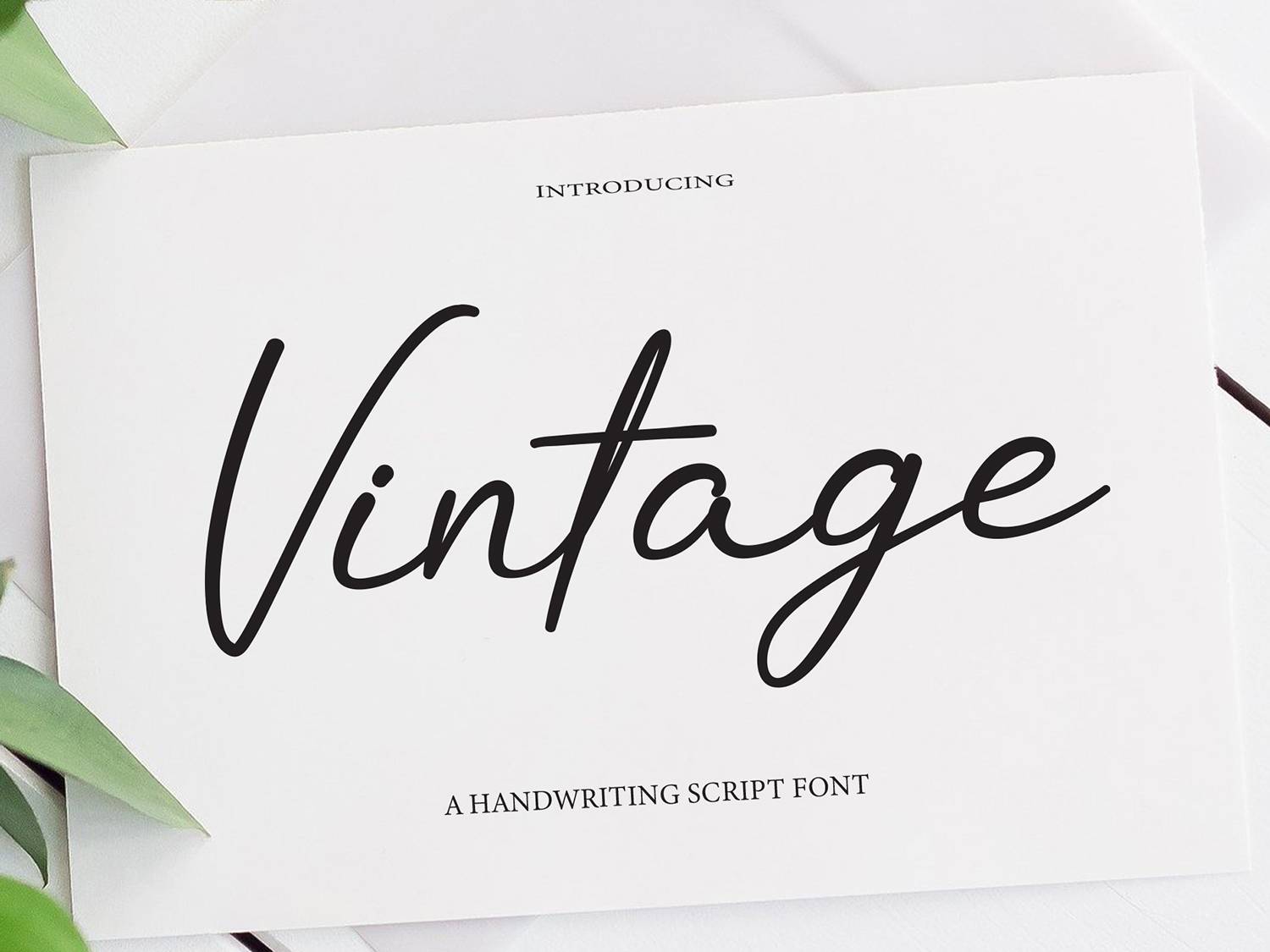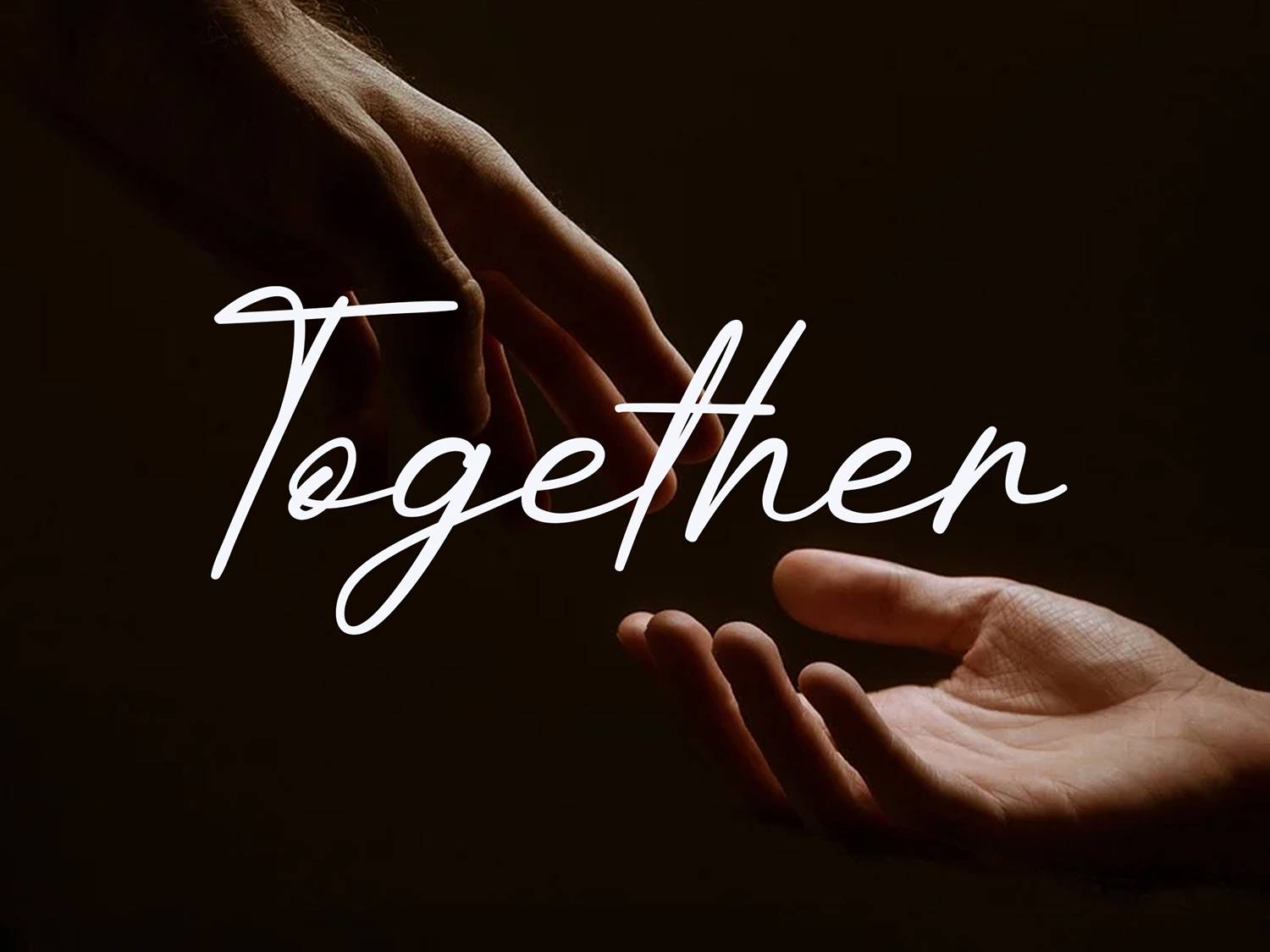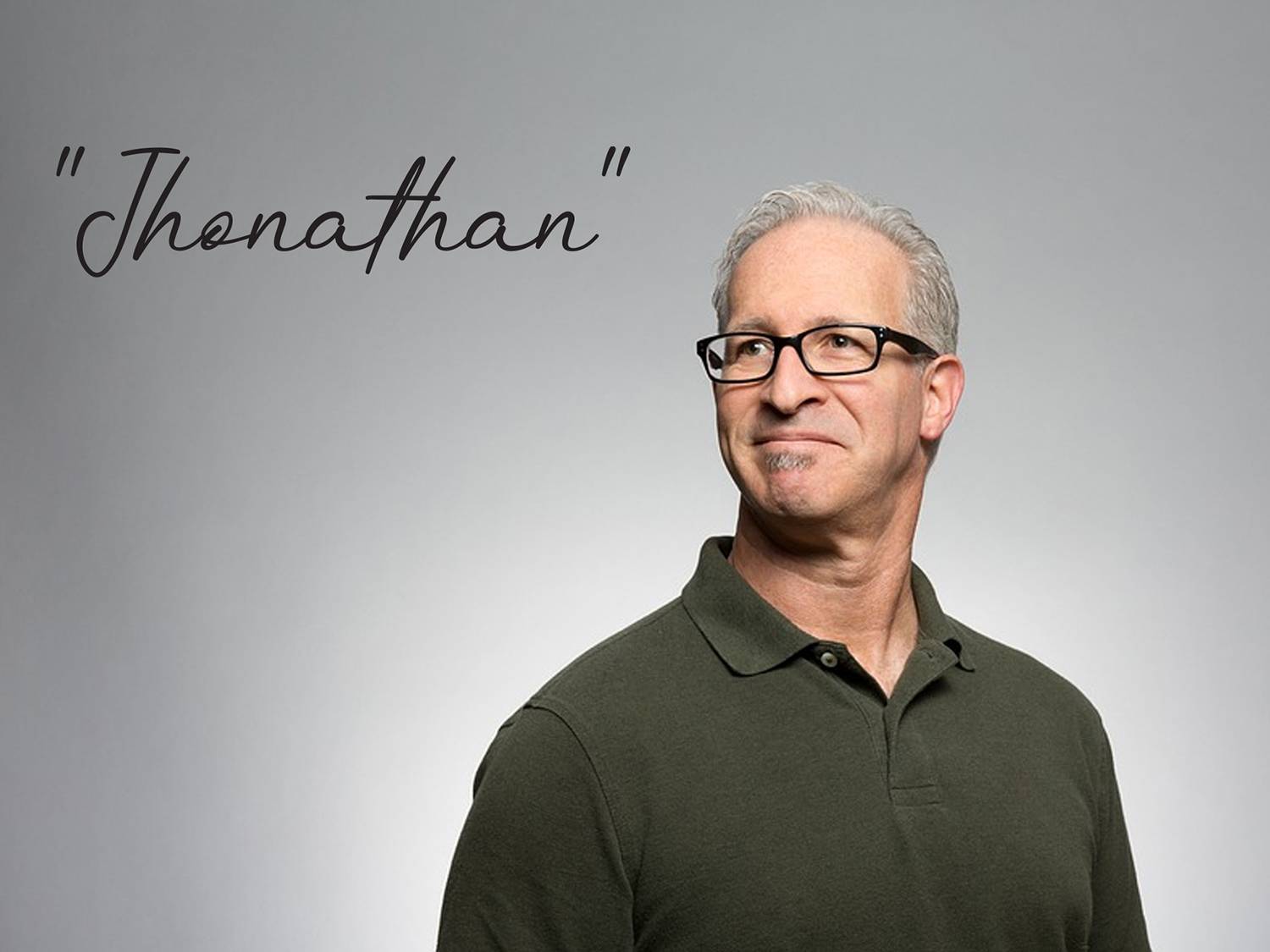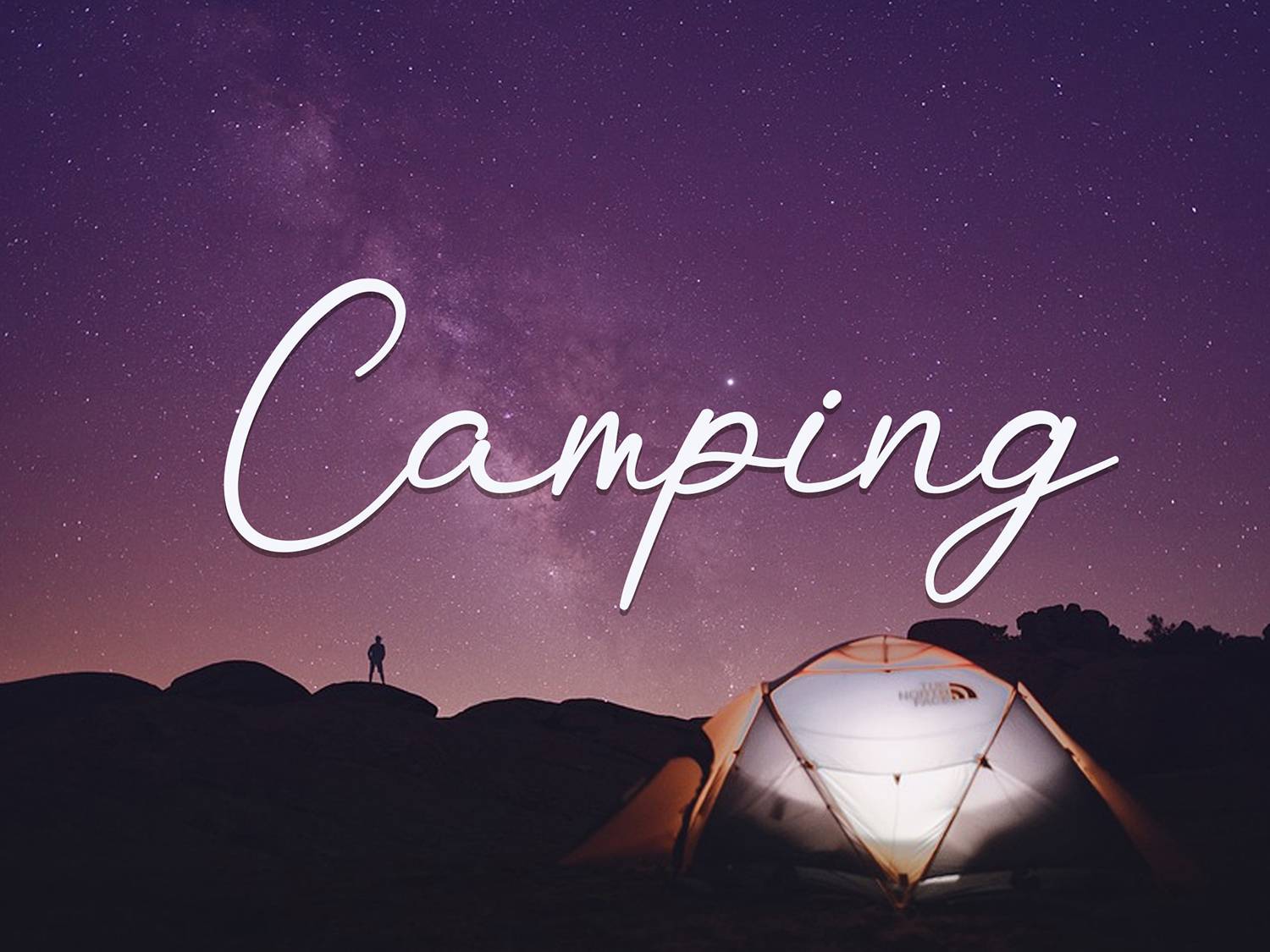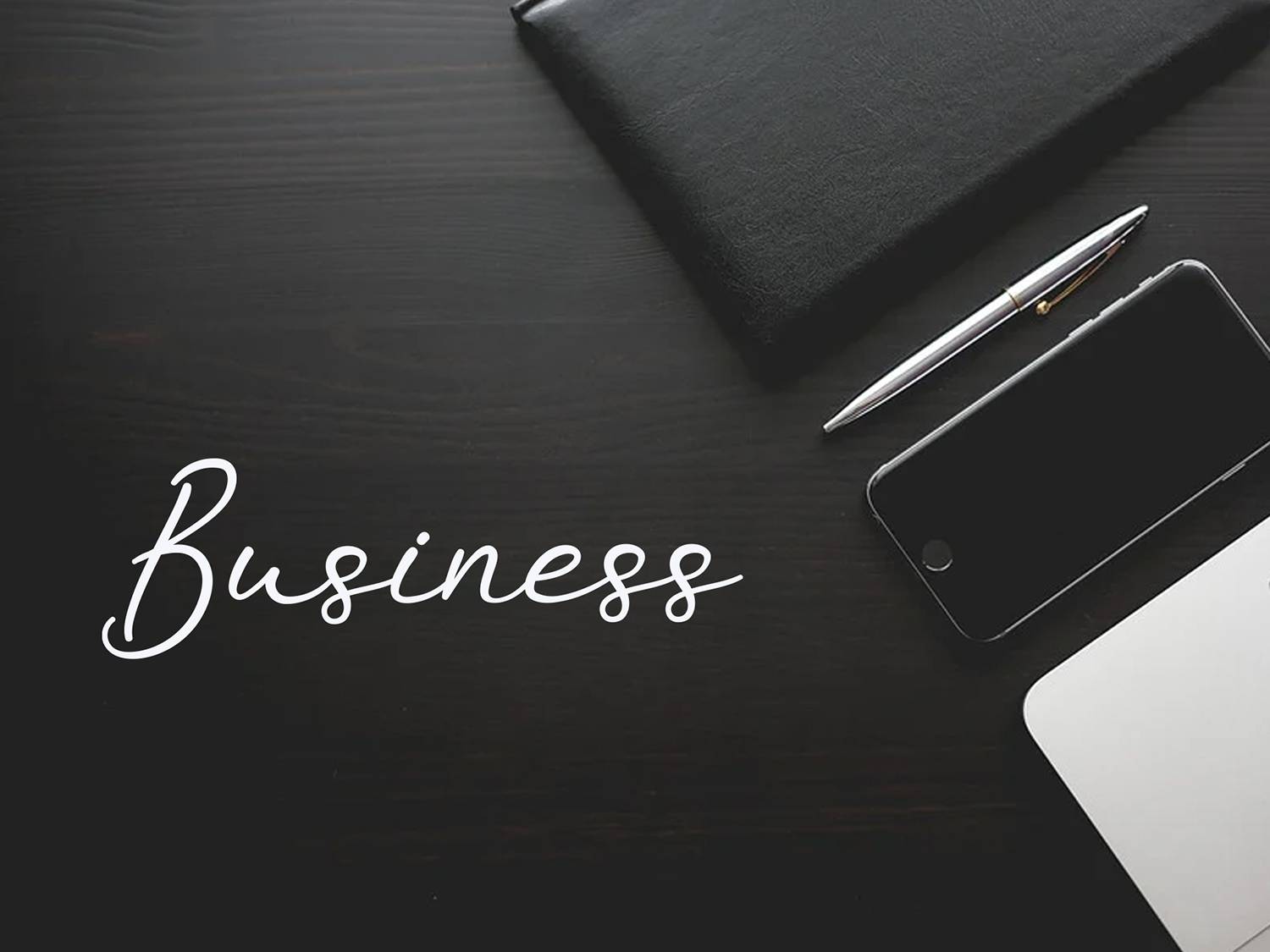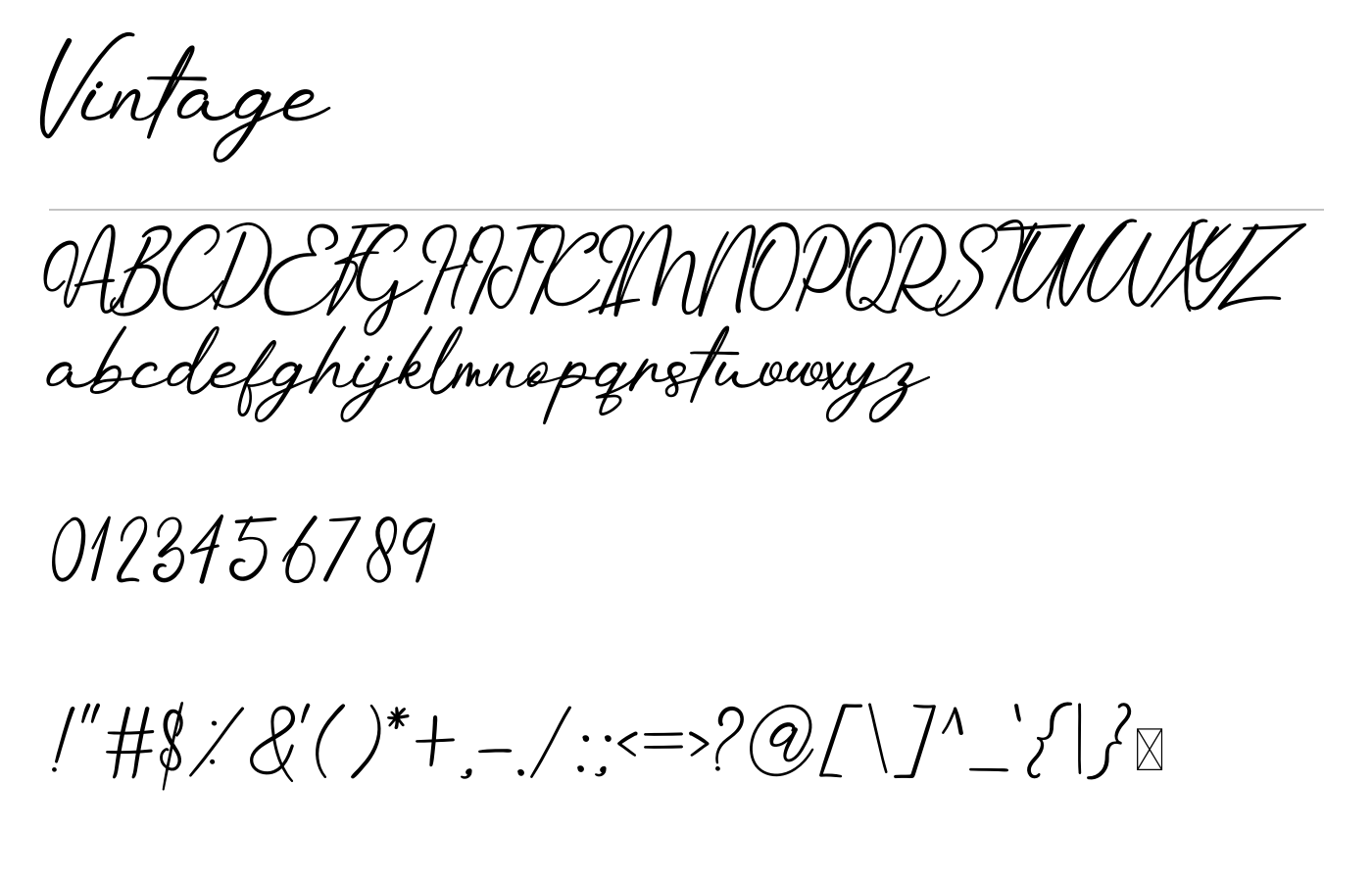
Vintage Font is a delicate and elegant script typeface that captures the charm of classic handwriting with smooth, flowing lines and a light, airy feel. Its slender strokes and graceful curves make it perfect for adding a touch of sophistication and personal warmth to invitations, branding, and editorial designs. This font works best in creative projects where a refined yet approachable look is desired.
Vintage Font
About Vintage Font